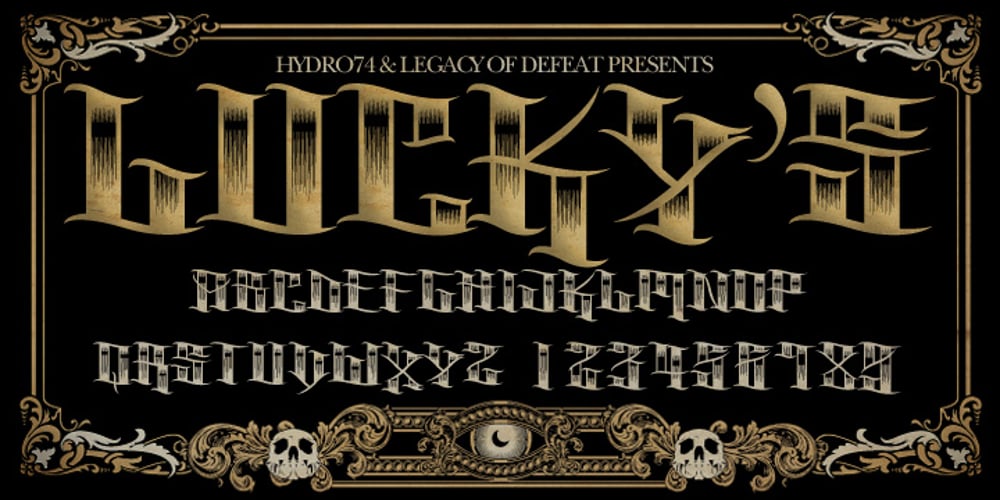
H74 Lucky’s Flash Font Family was designed by Joshua M. Smith and published by Hydro74. H74 Lucky’s Flash contains 1 styles and family package options. Lucky’s Tattoo Flash is a unique tattoo styled font with sharp edges and a mean streak that can only be defined by the amount of whiskey it consumes.